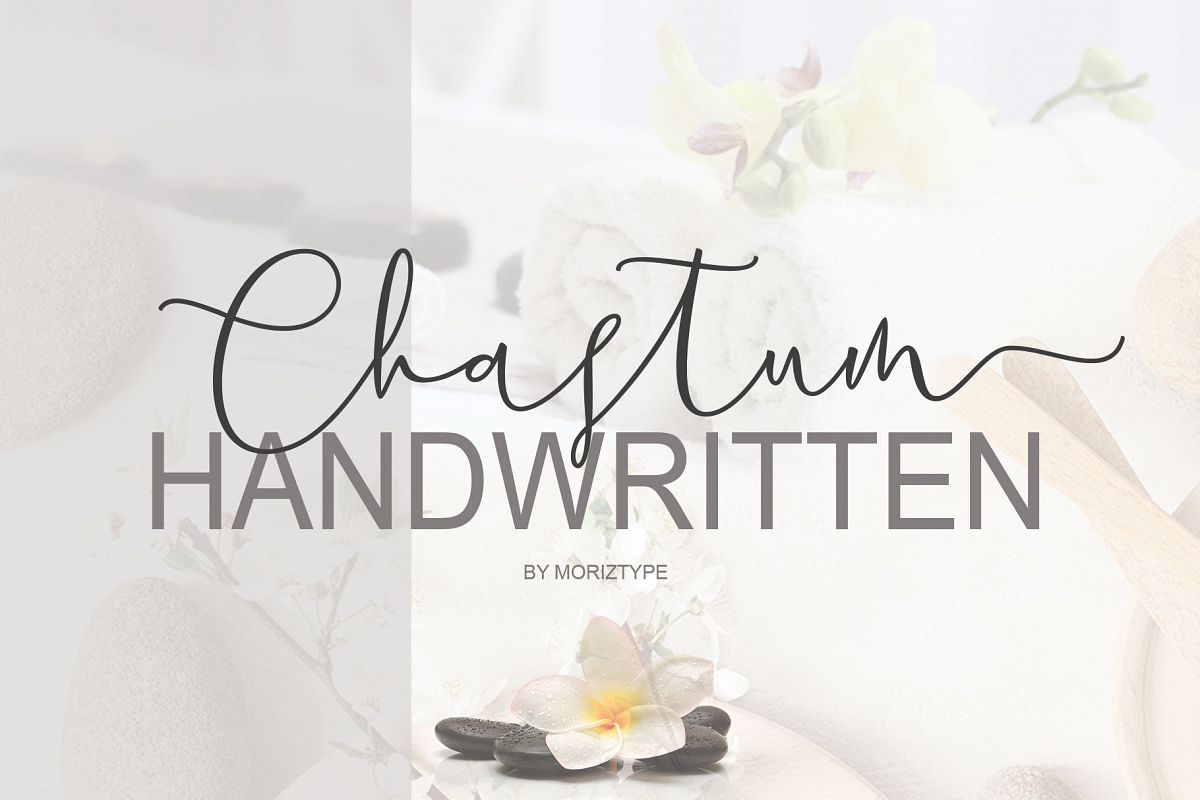
Chastum Handwritten
Chastum is a modern handwriting caligraphy, has its own distinctive features with a feminine style. It is perfect for invitations, signatures, blogs, social media, business cards, product brands and more. also comes with some ligatures, stylistice sets.FILE INCLUDE